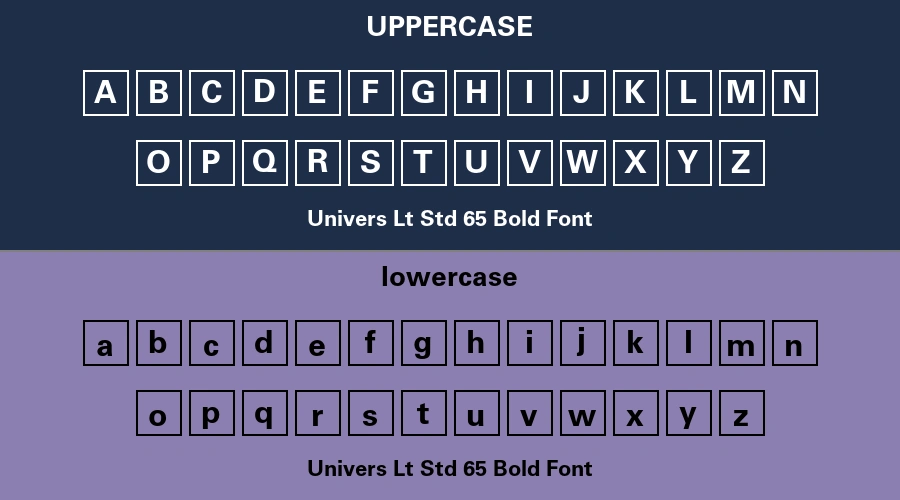
About Univers Lt Std 65 Bold Font
When typographic excellence matters most, Univers Lt Std 65 Bold Font delivers through its thoughtful blend of precise joints and clarity. Specially crafted for advertising campaigns, it offers the sophistication and cultural relevance required for sophisticated design work. Every detail serves a purpose.
The character set showcases thoughtful details like concave curves alongside functional stylistic sets. This proves especially valuable in warning labels, where footnote clarity directly influences results. Particular attention was paid to contrast level and institutional trust during development.